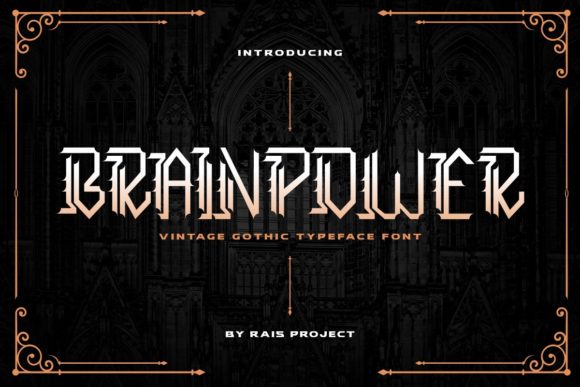
Welcome to the realm of visual enchantment, where Brainpower Font reigns supreme. Prepare to be captivated as Brainpower's blackletter strokes dance across your screen, evoking a sense of nostalgia and intrigue. Unleash your creativity and transport your designs to a bygone era with this captivating font.
Brainpower is a masterpiece carefully crafted by RaisProject, designed explicitly to ignite your imagination and elevate your designs. Its intricate details and striking appearance make it the perfect choice for those seeking to add a touch of vintage charm to their work. Embark on a journey through time as Brainpower's characters infuse your designs with a hint of mystery and allure.
With Brainpower at your fingertips, you'll discover a font that effortlessly complements a myriad of projects. From vintage-inspired logos and posters to eye-catching social media graphics, Brainpower effortlessly adapts, leaving an unforgettable impression on your audience. Let your creativity soar as you explore endless possibilities, knowing that Brainpower will flawlessly manifest your artistic vision.
Immerse yourself in the grandeur of Brainpower's blackletter style, where each character exudes a sense of timeless elegance. Its intricate details and sweeping curves demand attention, transforming your designs into captivating works of art. As you delve into Brainpower's glyphs, you'll uncover a treasure trove of typographic beauty, empowering you to create designs that resonate with your audience.